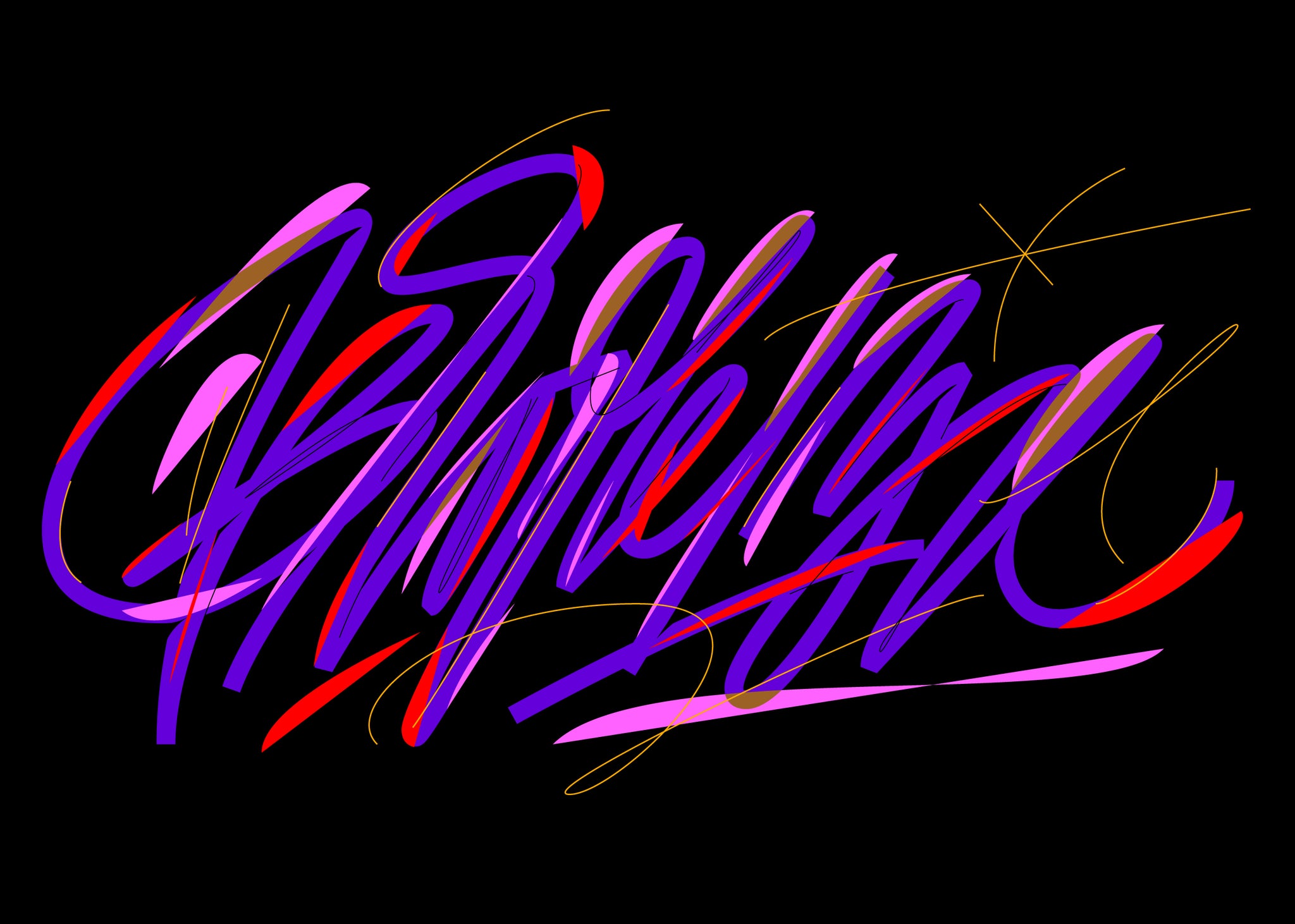
Originally hailing from Poland, where she explored her initial practice in her art school studies for eleven years, Designer, Art Director and Letterer Zuzanna Rogatty has certainly put her artistic proficiency into practice since moving state-side – now splitting her time between Hawaii and New York as a senior designer at COLLINS.
“Branding has been the core of my design practice for almost 8 years now,” Zuzanna tells us, discussing the varied definition of her eclectic practice. “Typography became an outlet for my personal expression and it has gradually become more prominent in my life,” she explains, having now made a name for herself through her lettering as well as her prolific professional practice. “My lettering is an absolute freestyle dictated by my intuition,” Zuzanna remarks, “quite honestly, I don’t know what I’m doing, but it’s what makes it exciting,” expressing a candour and character that can be beautifully, and explicitly, seen in the vibrant expression of her work.
This notion of intuition and character seems fundamentally woven within the fabric of Zuzanna’s work, establishing a unique aesthetic voice that is undoubtable – and seemingly unavoidably – Zuzanna’s. “I tried to fight it in the past,” she recalls, referring to the manifestation of her defined style. “First of all it’s inevitable to maintain a style in your practice,” Zuzanna explains, “it happens unconsciously or purposely,” she adds. “Second of all it’s what makes you unique, makes you you,” Zuzanna notes, “and helps you to stand out in the vast ocean of designers.” Intentionally exploring her style within this unique voice however, is something that is important to her work. Suggesting that this definition of style and artistic repetition can lead to a lack of further creative exploration, a stunting in personal growth, and an eventual creative burnout she mentions, “I think it was Picasso who said that there’s nothing worse than copying yourself, even copying others,” Zuzanna remarks, indicating it as precessory to sterility. “I keep it in the back of my head everyday,” she adds, “I aim to evolve and explore constantly.”
Zuzanna’s forward-thinking approach to creativity and self-awareness is clearly a key factor in the playfulness and characterful nature of her work, bringing together her typographic rigour and illustrative humour to create a practice that is truly unique and seemingly undefinable. “I like not knowing how to define it,” Zuzanna tells us, noting, however, her hesitancy to call herself an illustrator; “I simply and consciously didn’t choose that path,” she explains. “I remember reading a Paula Scher interview, in the beginning of my early lettering explorations,” Zuzanna recalls, “in which she tells a story about how her Polish (!) teacher told her to illustrate with type,” a story that left a major impact on her younger self. “It allowed me to open my mind from treating typography in a traditional manner and use it as a tool to express myself,” providing her the opportunity to bridge her lettering skills and branding knowledge to propel each respective discipline forward. “My ability with systematic thinking helps with illustrative lettering work,” she adds, “sometimes these two fields overlap.” Whether it is the graphic candour of Zuzanna’s branding, or the scratches of her lettering, mark-making and the obvious involvement of humanity and hands is ever present in Zuzanna’s remarkable work. Questioned about whether she saw this tactility as important in the work she creates, Zuzanna explains, “I lean towards more gestural forms and it’s very subjective, but I think that a human touch will always be more powerful and emotionally packed than a digitally constructed, grid based piece of lettering,” caveating the unquestionable value in both. “My style definitely doesn’t suit all design challenges,” Zuzanna adds, “that’s why I don’t do lettering only.”
Whatever the means, however, the underpinning of Zuzanna’s work is – importantly and undeniably – play. “Having fun is crucial to my practice,” she tells us, “sometimes I laugh to my sketchbook or screen, which is dumb, but that's a testimonial of the fact that my work genuinely brings me joy.” This delight is a factor that not only exudes from her work, but is the reason that Zuzanna began lettering in the first place. “It began years ago as an experiment born from frustration at all the limitations being put on me as a designer,” she recalls, “I wanted to be free from that and lettering became my gateway,” finding the blank page a precious place devoid of expectation, restriction and rules. “That allowed me to have tremendous fun with letters,” Zuzanna adds, “I keep it that way.”
Looking ahead at what’s to come, Zuzanna declares, “I’m sick of looking at my screen!” finding herself dead set on grander, more physical manifestations. “For a long while already I’ve been planning to expand on other media and increase the scale of my lettering,” she recalls, noting her ultimate goal of painting on the biggest possible wall or canvas. “Other than that,” she concludes, her future seems set on “constant exploration.”